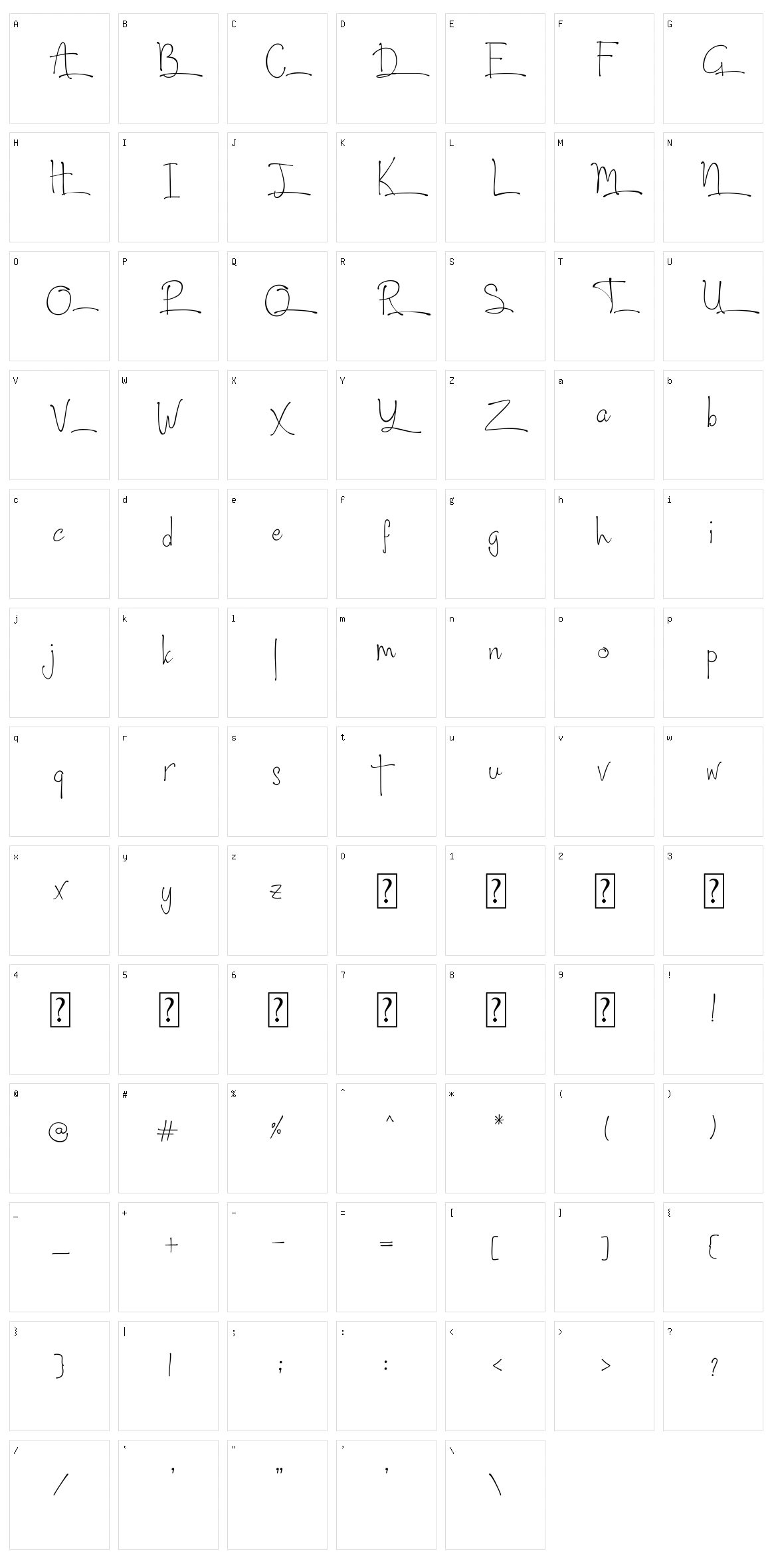
The free font North City is carefully designed by Typeline Studio, showcasing a thoughtful balance of creativity and usability and falls under the Script font style. When you download the ZIP file, it contains only 1221.32 KB of font files, making it lightweight and quick to download. Please review the license details below to understand permitted usage and distribution rights. If license information is not available, we recommend using this font for personal projects only or contacting the author directly for commercial usage permissions.
North City.